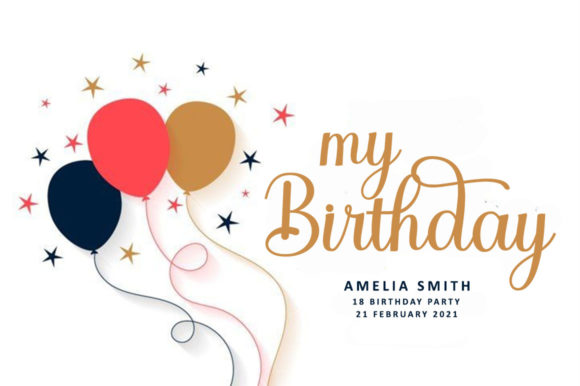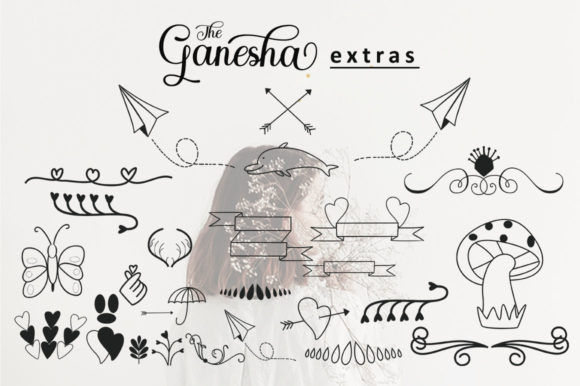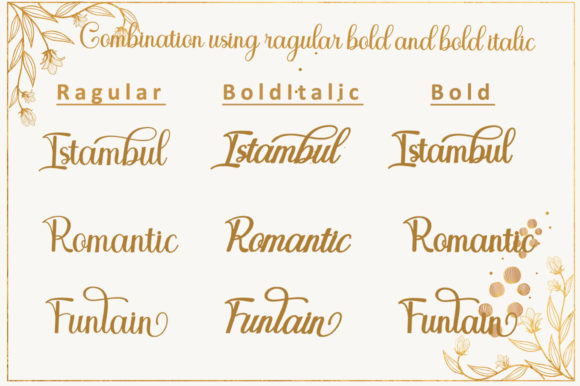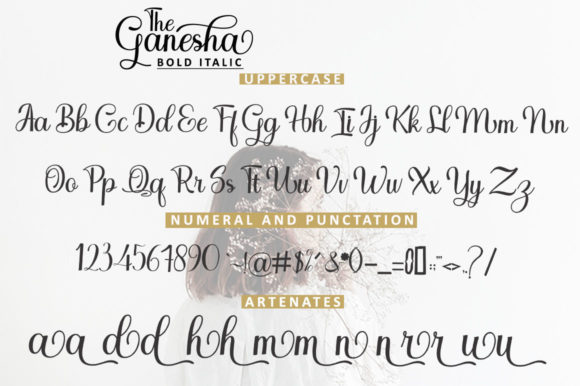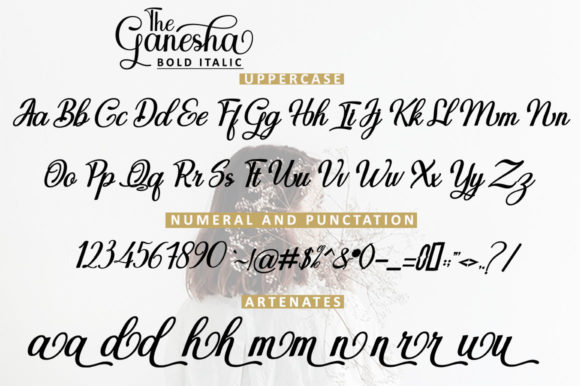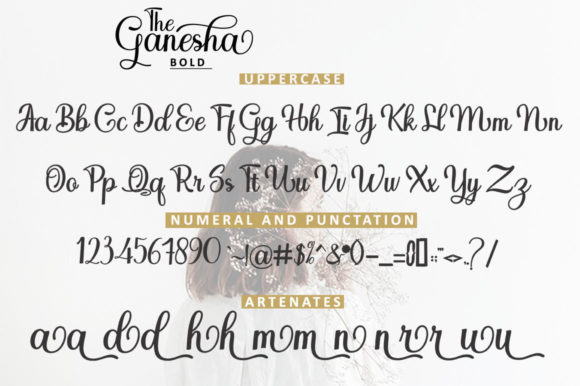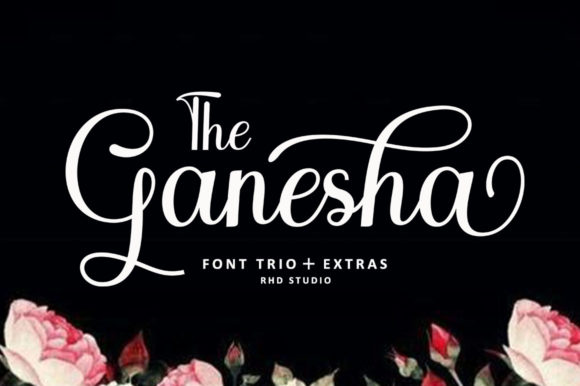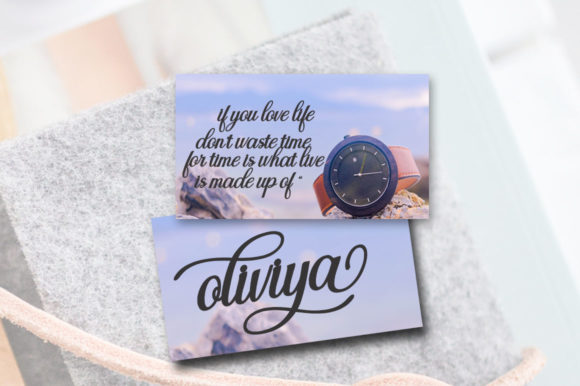
The Ganesha Font
About The Ganesha Font
Ganesha is a smooth and elegant handwritten font that exudes a sense of grace and sophistication. With its flowing curves and balanced characters, this font offers a harmonious and pleasing aesthetic that can enhance a wide range of creative projects.
The beauty of Ganesha lies in its versatility. Whether you’re designing logos, branding materials, invitations, posters, or social media graphics, this font adapts effortlessly to different contexts. Its refined style adds an element of elegance and charm to any design, making it suitable for both formal and informal settings.
The smooth and flowing nature of Ganesha’s letterforms creates a sense of fluidity and ease. Each stroke is carefully crafted to maintain a consistent rhythm, resulting in a visually pleasing and harmonious composition. This flowing quality gives the font a touch of sophistication and makes it particularly well-suited for projects that require a refined and polished look.
Furthermore, Ganesha’s balanced characters contribute to its overall appeal. Each letter is designed with careful attention to detail, ensuring that they harmonize with one another and create a cohesive visual experience. The balanced proportions make the font highly legible and easy to read, even at smaller sizes.
One of the key strengths of Ganesha is its ability to evoke a sense of elegance and gracefulness. It has a timeless quality that transcends trends and remains relevant for years to come. Whether you’re designing for a wedding, a high-end brand, or any project that demands a touch of sophistication, Ganesha is the perfect choice to elevate your designs.
In summary, Ganesha is a smooth, elegant, and flowing handwritten font that offers versatility, grace, and a touch of sophistication. Its balanced characters and flowing curves make it suitable for a variety of creations, while its timeless quality ensures its longevity. Fall in love with the versatile style of Ganesha and create ravishing designs that captivate and inspire.